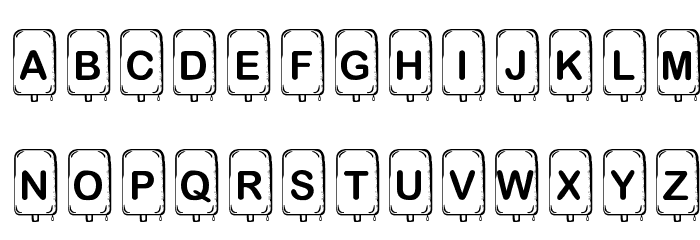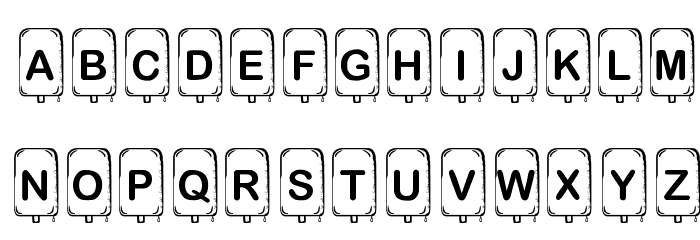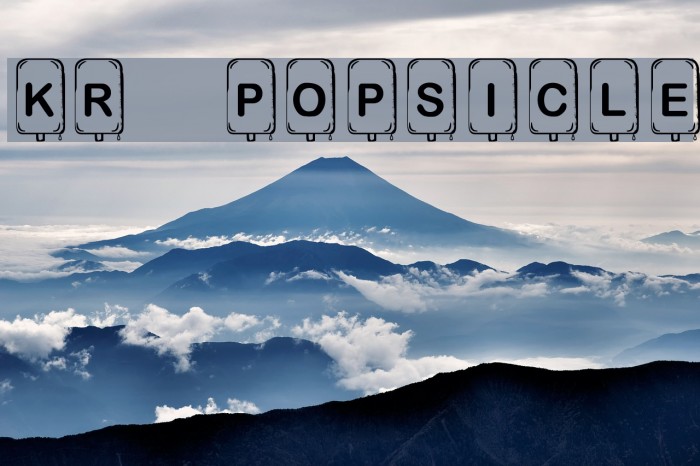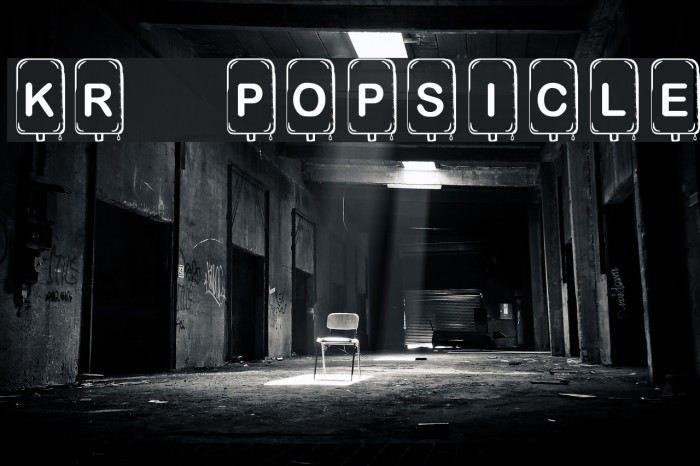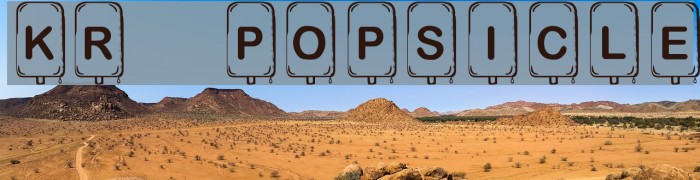
KR Popsicle Font
This playful and whimsical font features uppercase letters encased in popsicle-shaped outlines, adding a fun and unique touch to any design. The characters are bold and evenly spaced, with a consistent width that ensures readability. The rounded corners of the popsicle shapes give the font a friendly and approachable feel, making it ideal for projects aimed at a younger audience or those seeking a lighthearted aesthetic. The font's design is both eye-catching and memorable, perfect for creating standout headlines or logos.
A playful font with uppercase letters in popsicle-shaped outlines.
- Proposed Projects: Ideal for children's book covers, playful branding, summer-themed posters, and fun event invitations.
- Overall Style: Playful, Whimsical